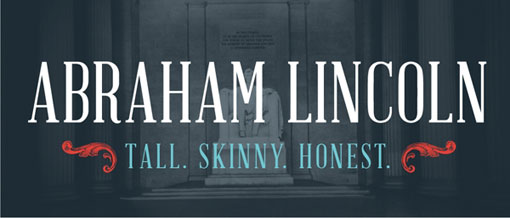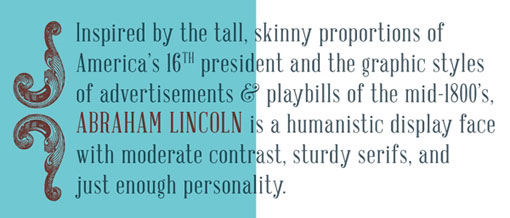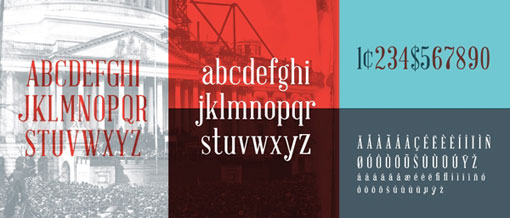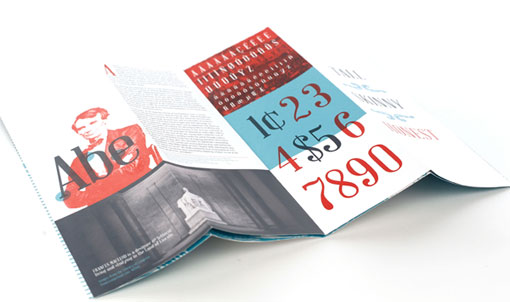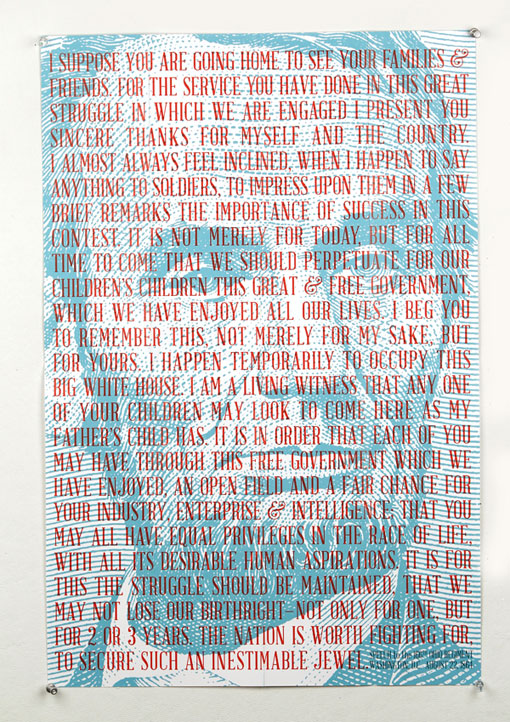
I’m giving you a double dose of type love today, with this new display font designed by Frances MacLeod. Abraham Lincoln was born out of a need for a condensed serif, and the tall, skinny and honest typeface is now available for purchase at Lost Type Co-op.